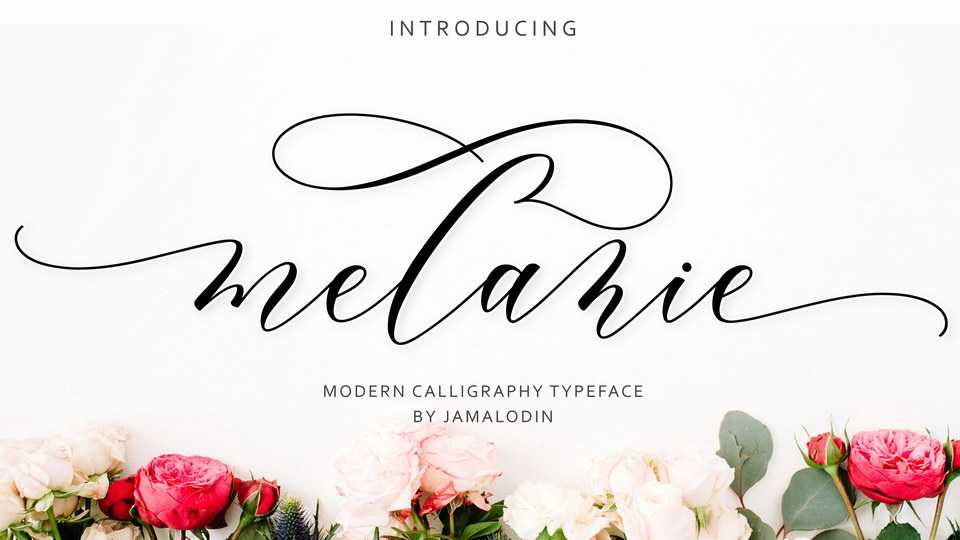
Download Melanie Script font, a charming modern calligraphy typeface. Every single letter of Melanie Script has been carefully crafted to make your text looks beautiful.
Designer: Jamalodin